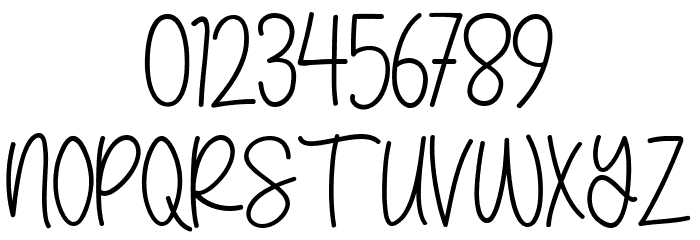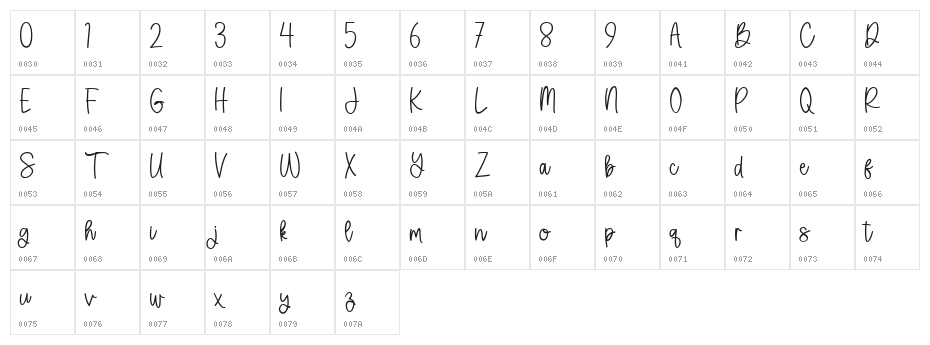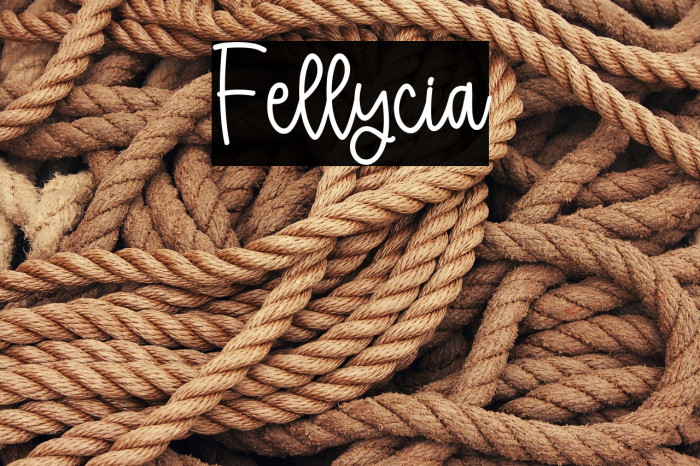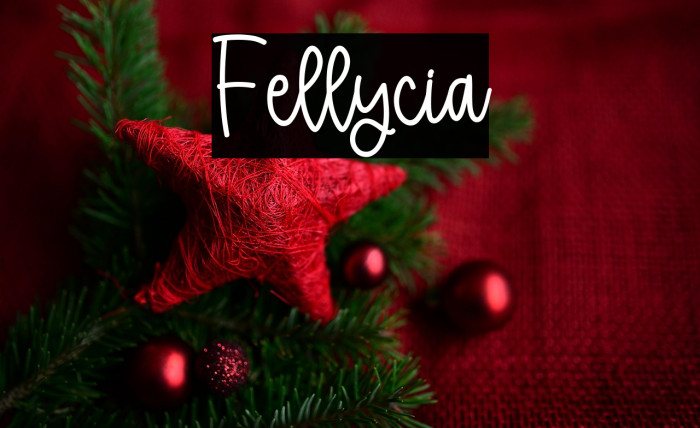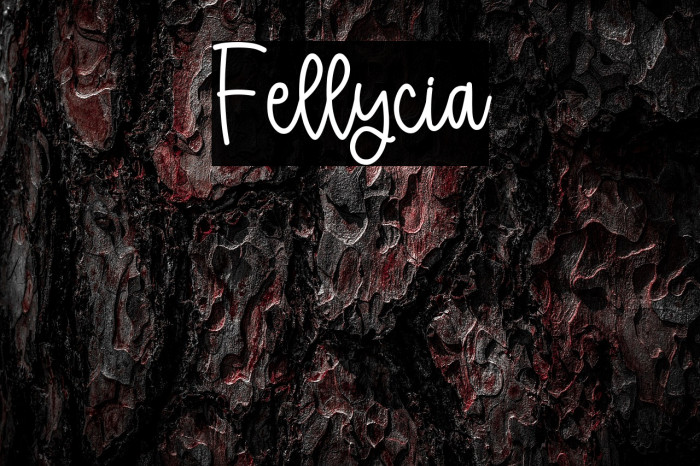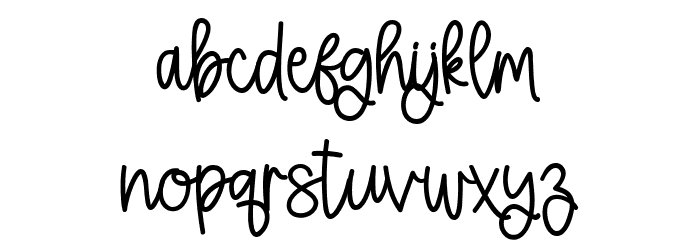
Fellycia Font
Fellycia Description
This font features a playful and casual handwritten style, characterized by its flowing, cursive-like letterforms. The strokes are smooth and consistent, giving it a relaxed and approachable feel. Uppercase and lowercase letters are well-balanced, with a slight slant that adds to its informal charm. The numbers and special characters maintain the same whimsical quality, ensuring a cohesive look across all text elements. The font's overall appearance is both modern and friendly, making it suitable for a variety of creative applications.
| Use Case | Logos, Headlines, Informal text |
| Proposed Projects | Ideal for greeting cards, invitations, personal branding, and social media graphics. |